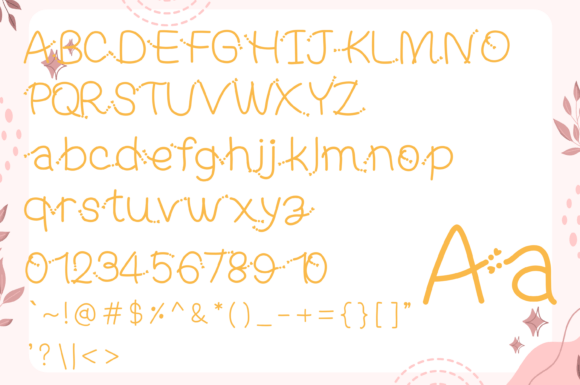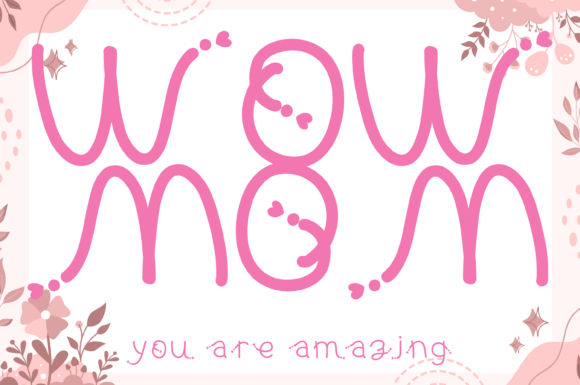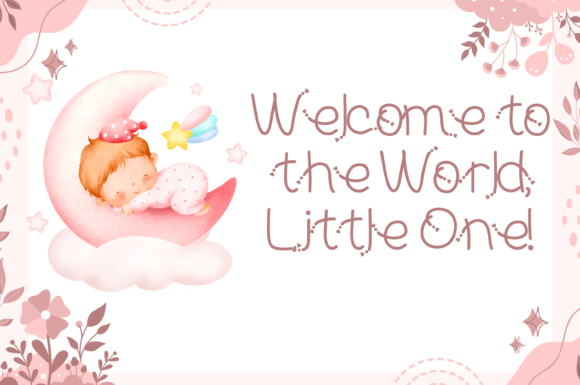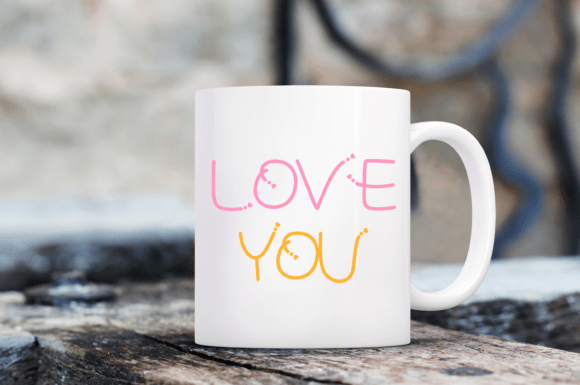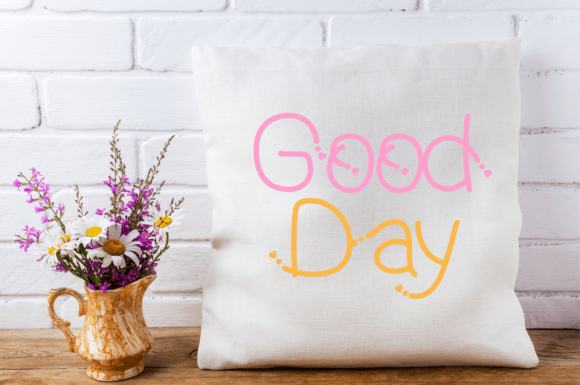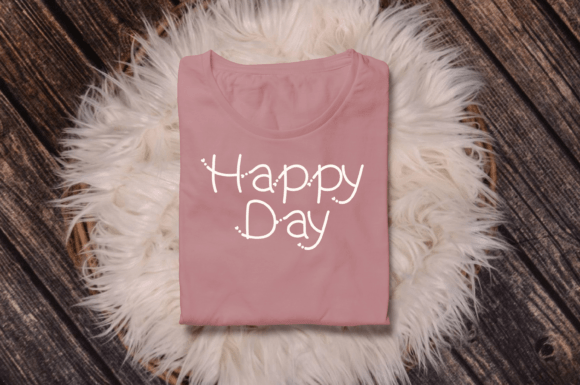
The Sweet Spot: Discovering Buzzy Trails Font
I still remember the design project that led me to Buzzy Trails Font. I was working on a children’s gardening kit, and I needed a font that would bring a playful, whimsical touch to the labels and activity sheets. After scouring through font libraries and marketplaces, I stumbled upon Buzzy Trails – a delightful handwritten font with dotted trails that seemed to dance through each letter. It was love at first sight! ✨
So, what makes Buzzy Trails so special? Here are the things I love:
- ✅ Playful and Whimsical: The font’s dotted trails and rounded strokes evoke a sense of fun and playfulness, perfect for children’s projects and nature-themed designs.
- ✅ Versatile: Buzzy Trails works beautifully for spring and summer invitations, gardening labels, and cheerful branding.
- ✅ Easy to Read: Despite its playful nature, the font remains clear and legible, even at smaller sizes.
- ✅ Unique Details: The charming decorative details, such as the dotted trails, add a touch of personality to any design.
Of course, no font is perfect, and Buzzy Trails has a few minor quirks:
- ⚠️ Limited Formality: Buzzy Trails is a casual, handwritten font, so it may not be the best choice for formal or professional projects.
- 🤔 Occasional Kerning Issues: As with any font, you may encounter some kerning issues, especially when using all caps or mixing with other fonts.
The Story Behind Buzzy Trails
According to its designer, Buzzy Trails was inspired by the simple joys of nature – watching bees buzz from flower to flower, collecting nectar and spreading pollen. The font’s dotted trails are meant to evoke the path of a busy bee, while its rounded strokes and playful feel make it perfect for designs that require a touch of whimsy and fun.
Q: What type of projects is Buzzy Trails best suited for?
A: Buzzy Trails is ideal for children’s projects, nature-themed designs, spring and summer invitations, gardening labels, and cheerful branding.